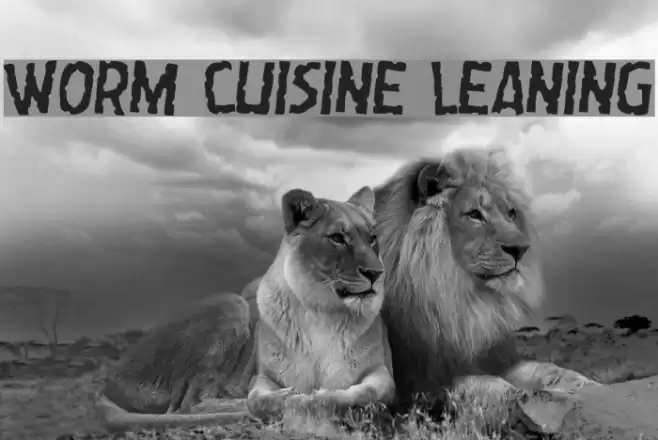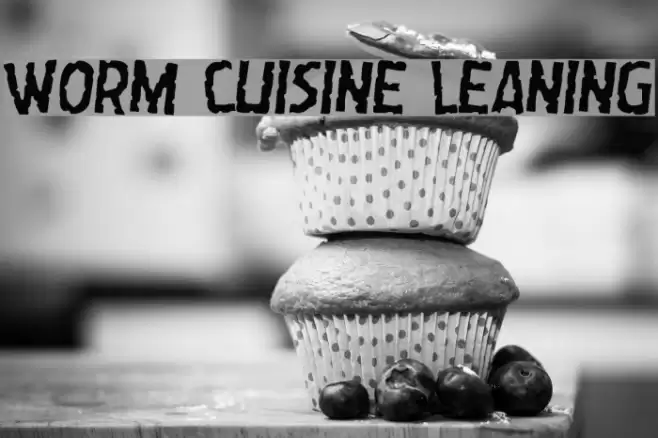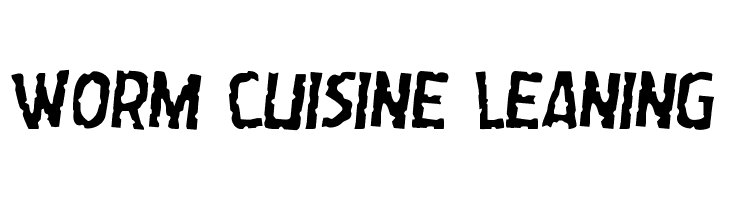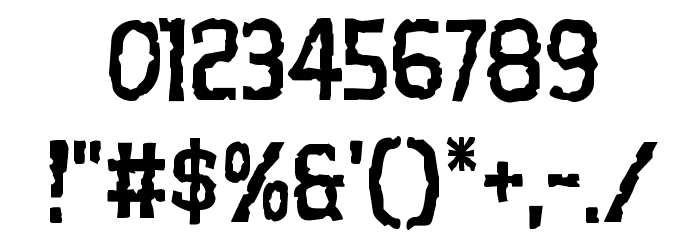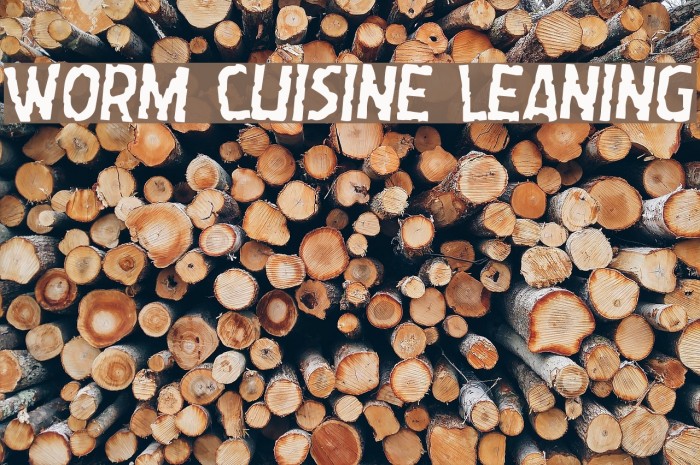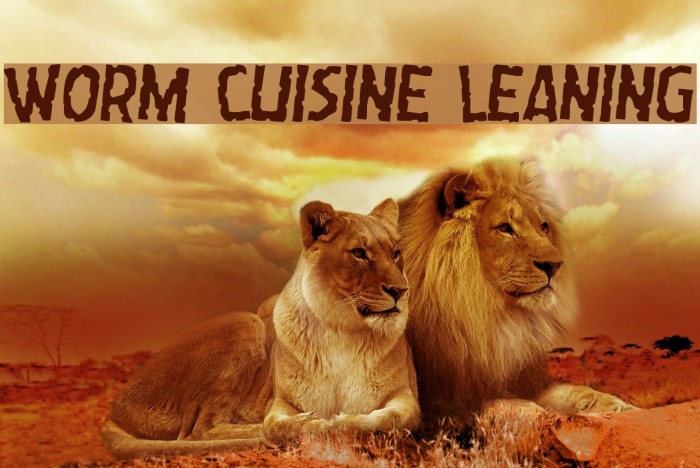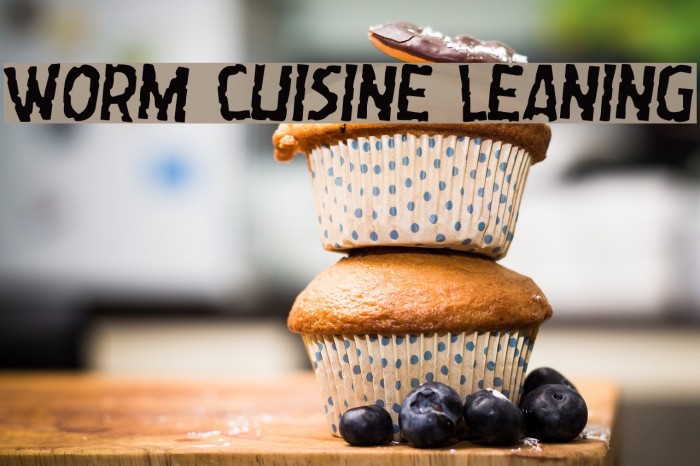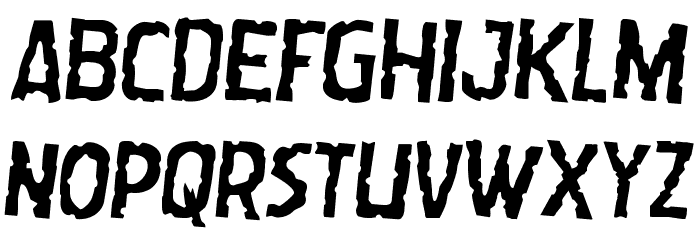
Worm Cuisine Leaning Font
Worm Cuisine Leaning Description
This font features a unique, rugged style with irregular, jagged edges that give it a hand-drawn, organic appearance. The letters have a bold presence, with a slightly condensed form that enhances their impact. The strokes are uneven, creating a dynamic and energetic feel. This font is particularly suited for creative projects that require a distinctive and unconventional look. Its boldness and irregularity make it stand out, while the condensed width allows for efficient use of space. The font's playful yet edgy style makes it ideal for attention-grabbing headlines and artistic designs.
A bold, rugged font with jagged edges and a hand-drawn appearance from Uncategorized fonts.
- Proposed Projects: Ideal for posters, album covers, branding for edgy products, and creative event invitations.